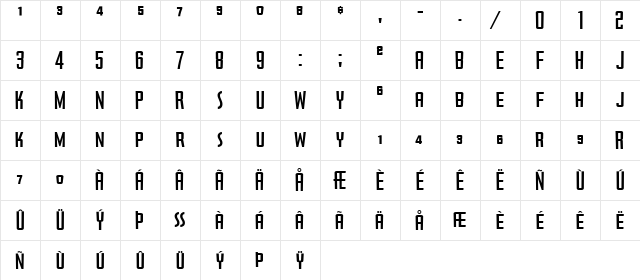
Mingo Regular
Design Context for Mingo Typeface
Mingo is a composed and adaptable typeface that performs quietly and consistently across a wide range of design contexts.